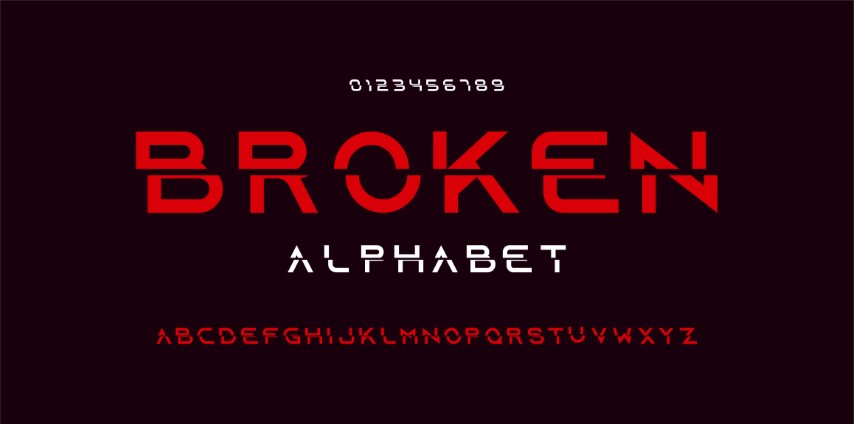
Elegant style alphabet - Decorative alphabet fonts and numbers.
Elegant alphabet typography fonts regular uppercase and lowercase. Typography modern serif fonts regular decorative vintage concept. Classic Lettering Minimal Fashion Designs. Vector.